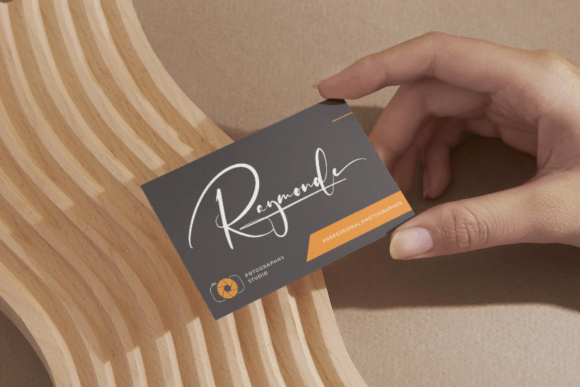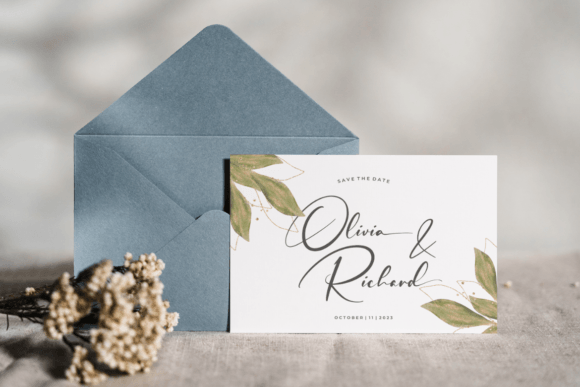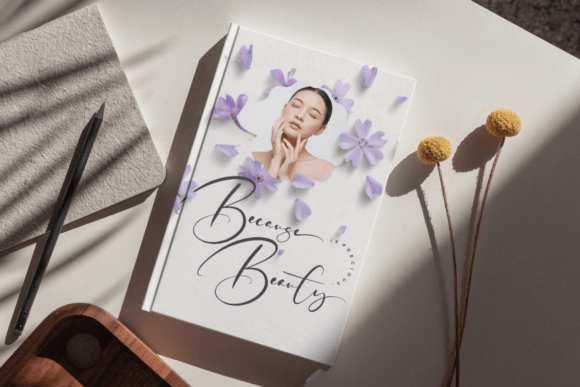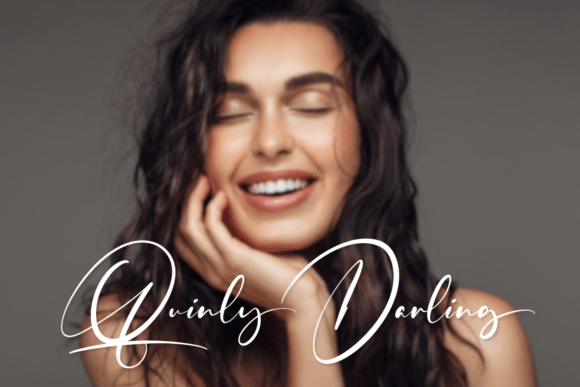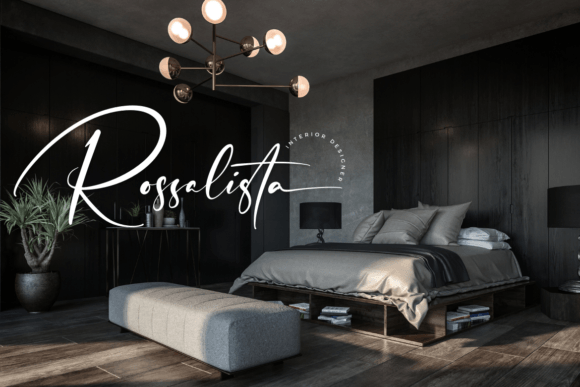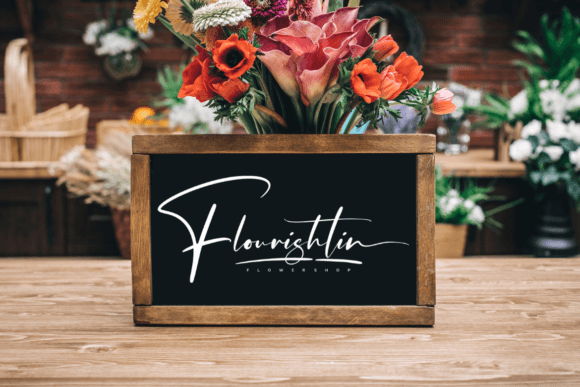
Introduction to Highestia Font
Have you ever sat at your desk, staring at a blank canvas, and wondered how to bring your creative vision to life? The perfect font can make all the difference in elevating your design from ordinary to extraordinary. For designers seeking a touch of elegance and sophistication, Highestia Font is the ultimate design resource. This stunning, handwritten font is perfect for adding a romantic flair to your creative projects, whether it’s a wedding invitation, a birthday card, or a social media post.
What sets Highestia Font apart is its versatility and high quality. With its PUA encoded feature, you can easily access all the glyphs and swashes, making it a breeze to customize your designs. Plus, the transparent background option allows for seamless integration with any background image or color. Whether you’re a seasoned designer or just starting out, Highestia Font is a valuable addition to your design toolkit.
Key Features of Highestia Font
- Unique, high-quality design suitable for creative projects and digital art.
- High-resolution fonts (300 DPI) for crisp and clear display on various devices and screen sizes.
- Designed with a focus on aesthetic appeal, making it a valuable addition to any design resource library.
- Supports a wide range of languages, making it a versatile design element for global creative projects.
Honest Review: Highestia Font
I recently stumbled upon the Highestia Font while searching for a unique design resource for a creative project. I was pleasantly surprised by the high quality of this font, which offers a sleek and modern aesthetic.
- ✨ High-quality design that’s perfect for a variety of creative projects
- ✨ Includes a transparent background option for added flexibility
While the Highestia Font is a great find, there are some limitations to consider:
- ⚠️ Limited character set, which may not be suitable for lengthy text-based projects
- ⚠️ Some users may find the font’s modern aesthetic too trendy or overused
Overall, I’m impressed with the Highestia Font and would definitely consider using it for future design projects. Its high quality and unique design make it a valuable addition to any design resource collection.
Getting the Most Out of Highestia Font
To get the most out of the Highestia Font, use it in combination with other high-quality design resources. Experiment with different font sizes, colors, and styles to create a unique and eye-catching design. You can also use the Highestia Font in conjunction with a transparent background to create a sleek and modern look.
The Highestia Font is a versatile design resource that can be used in a variety of creative projects, including logos, business cards, brochures, and social media graphics. It’s a great choice for designers who want to create a high-quality and professional-looking design.